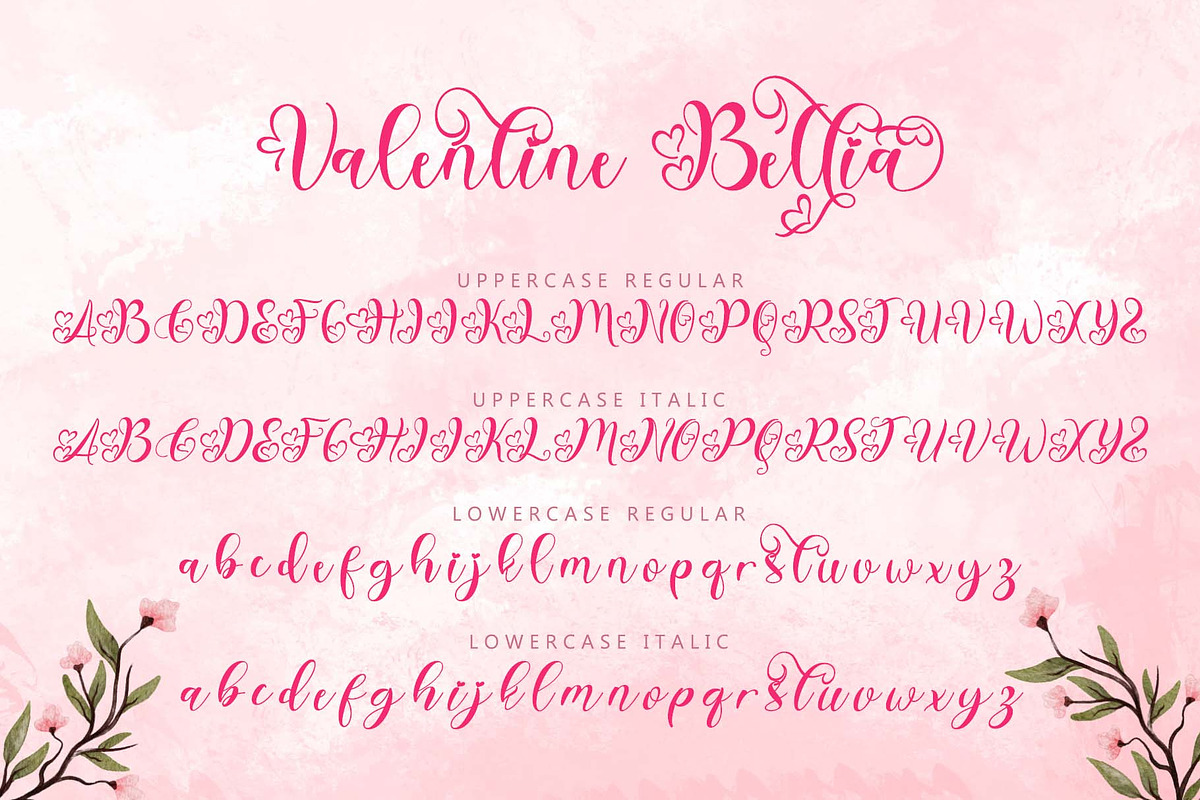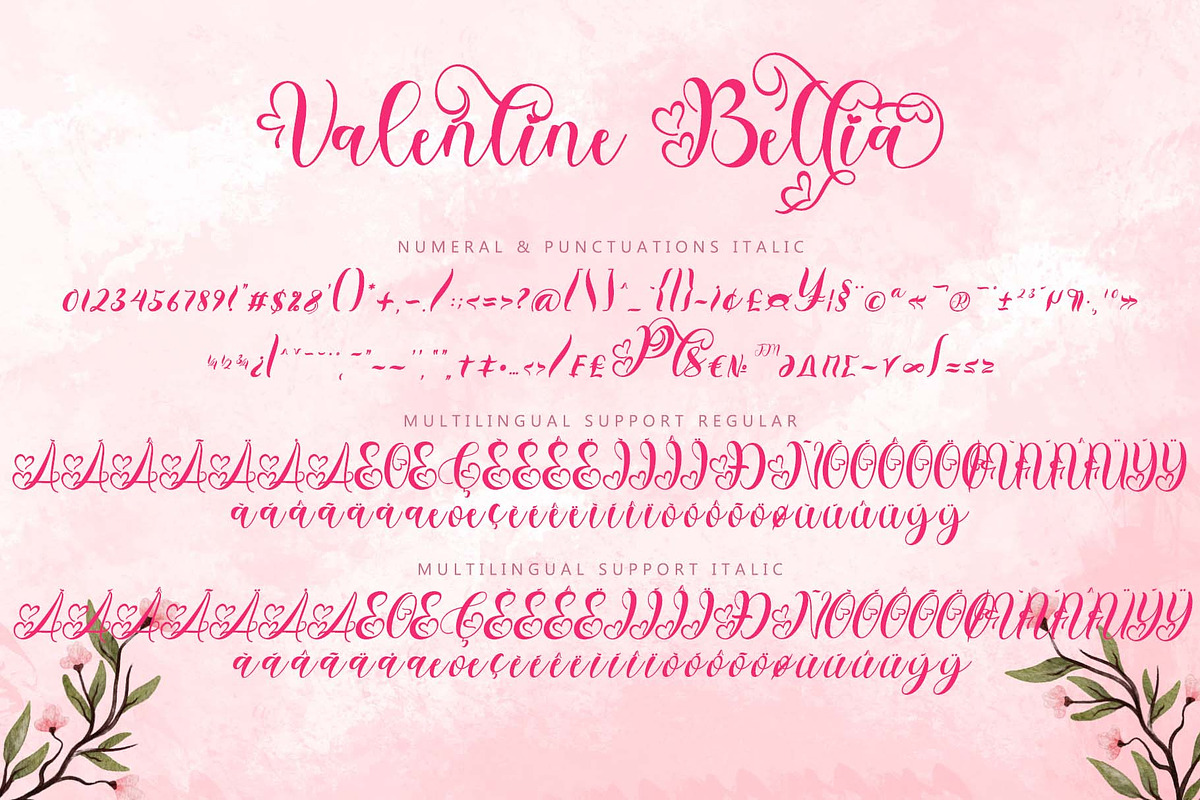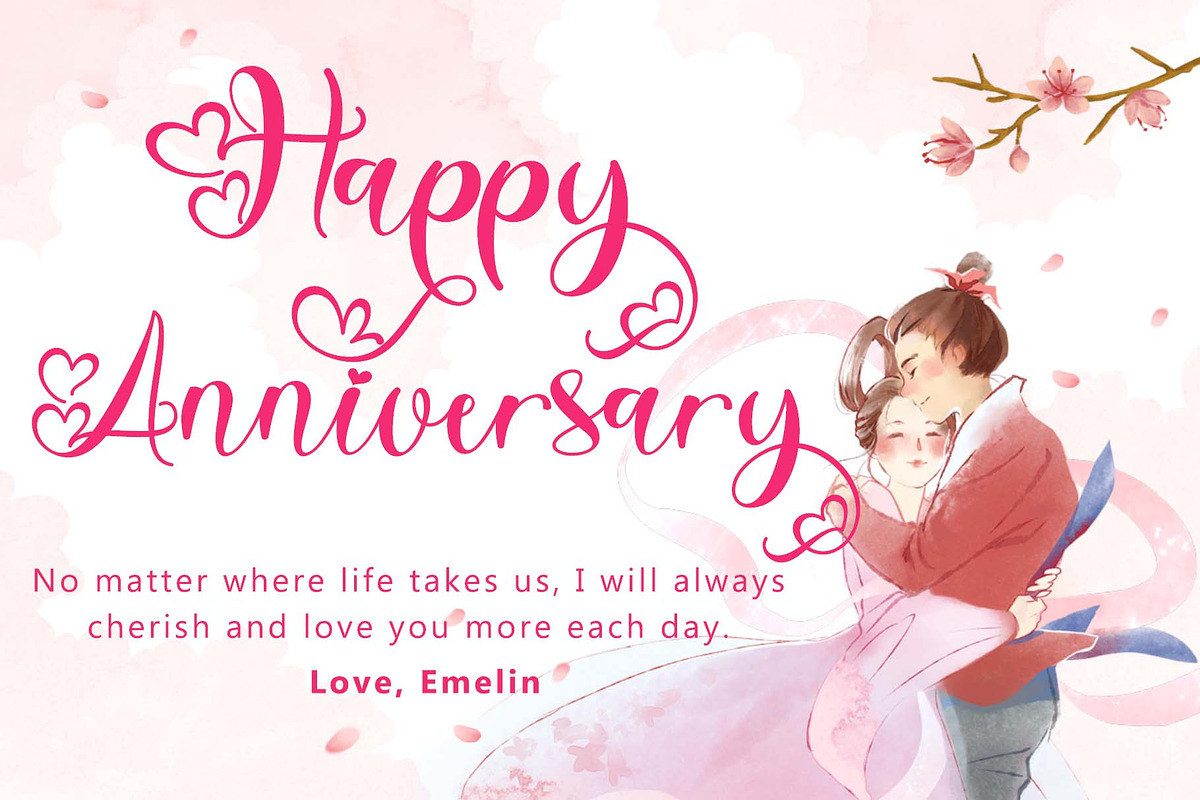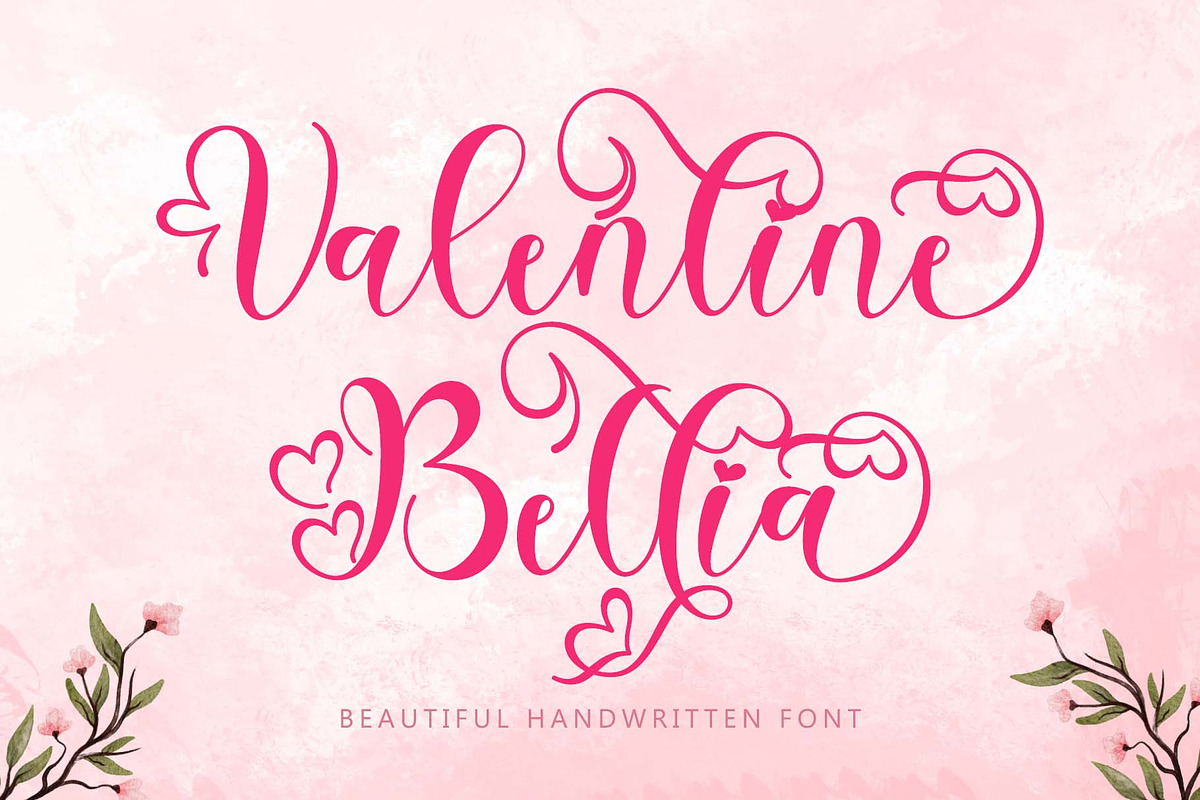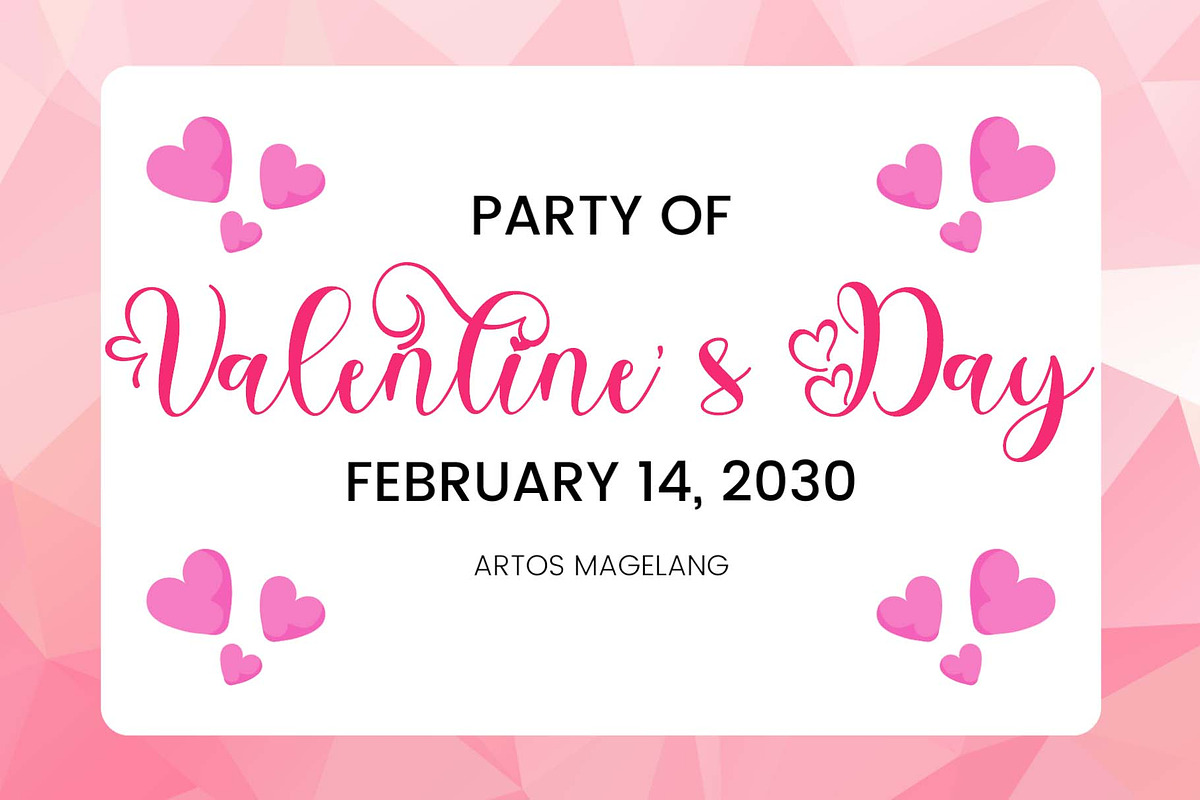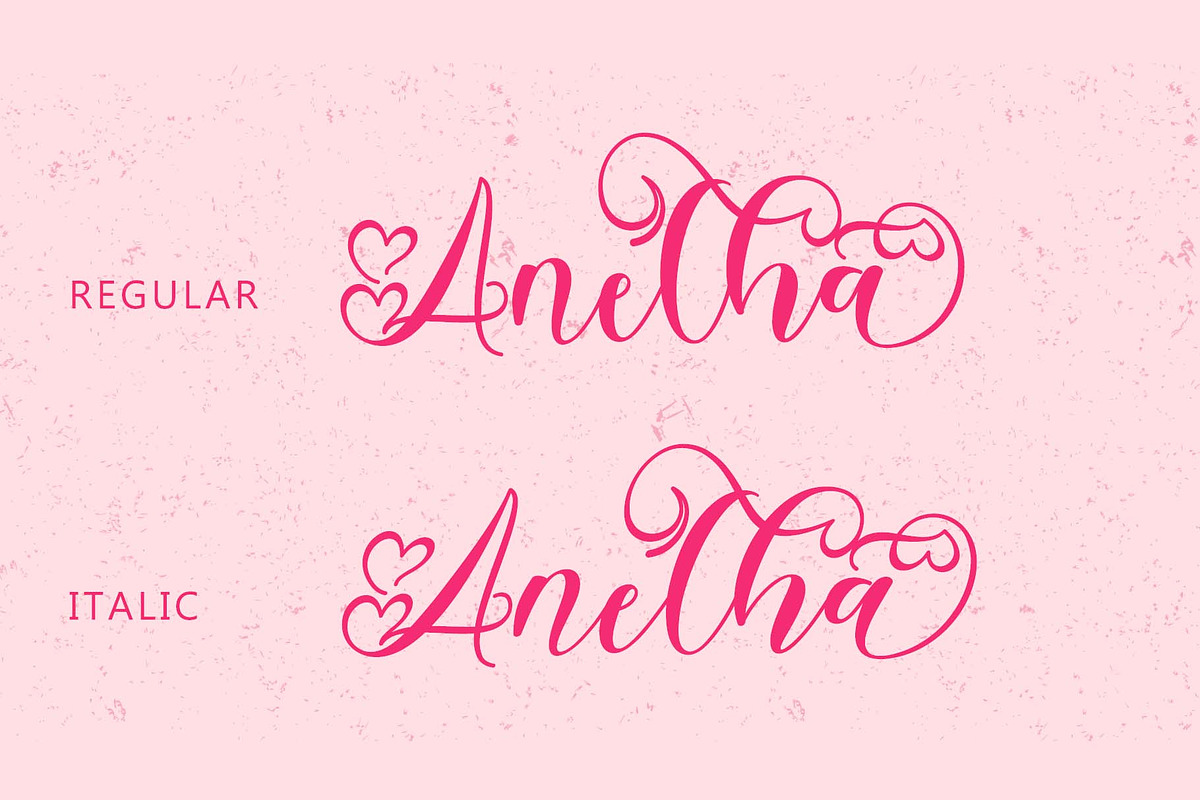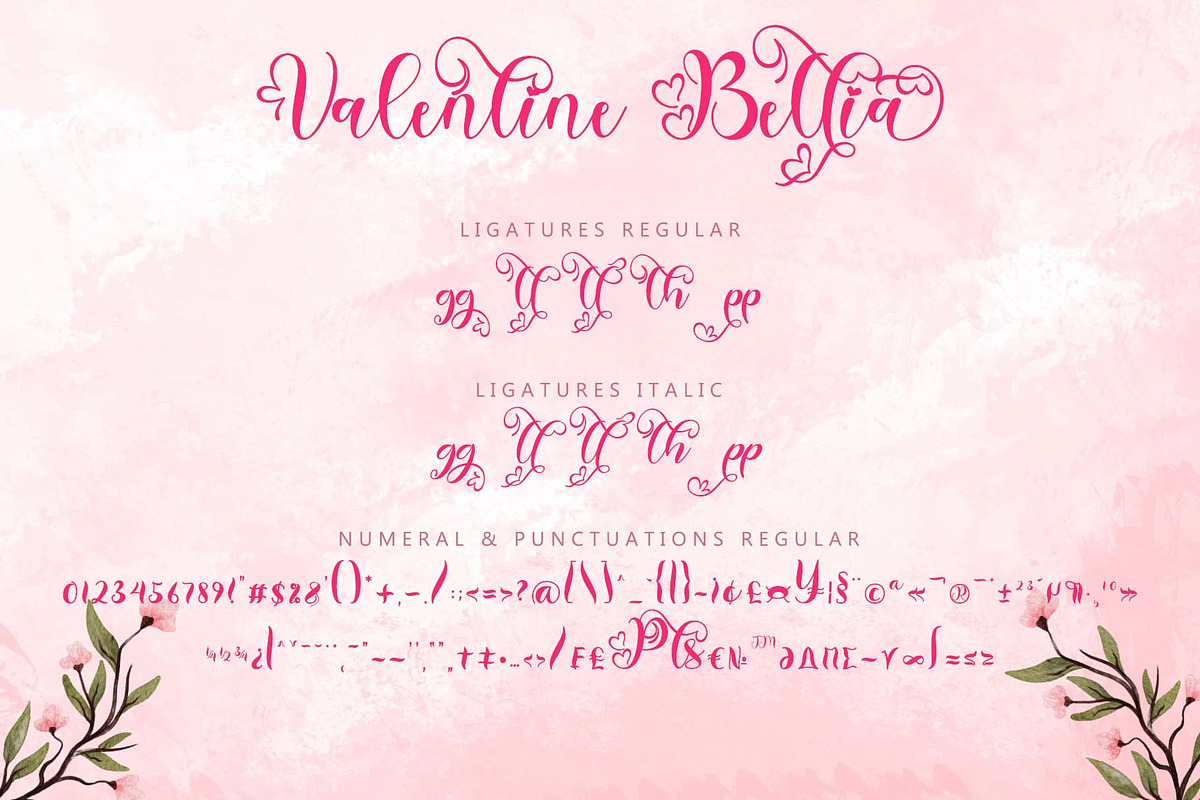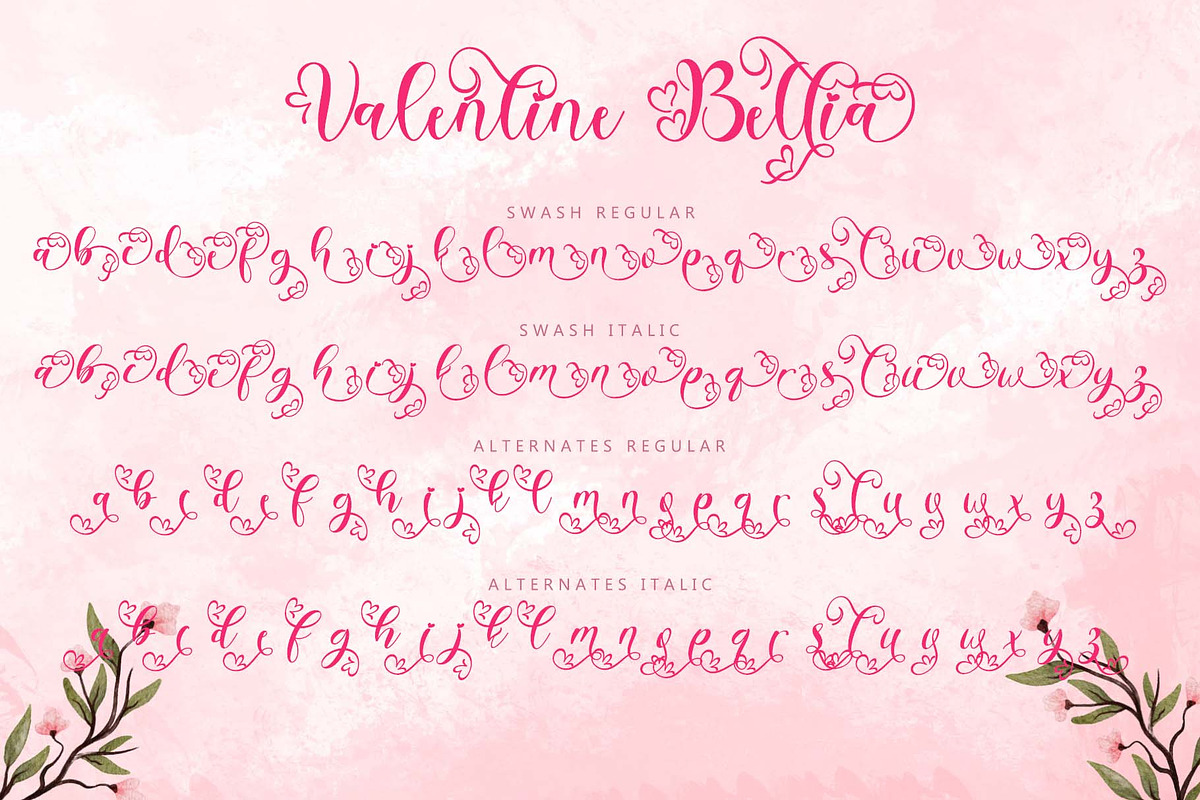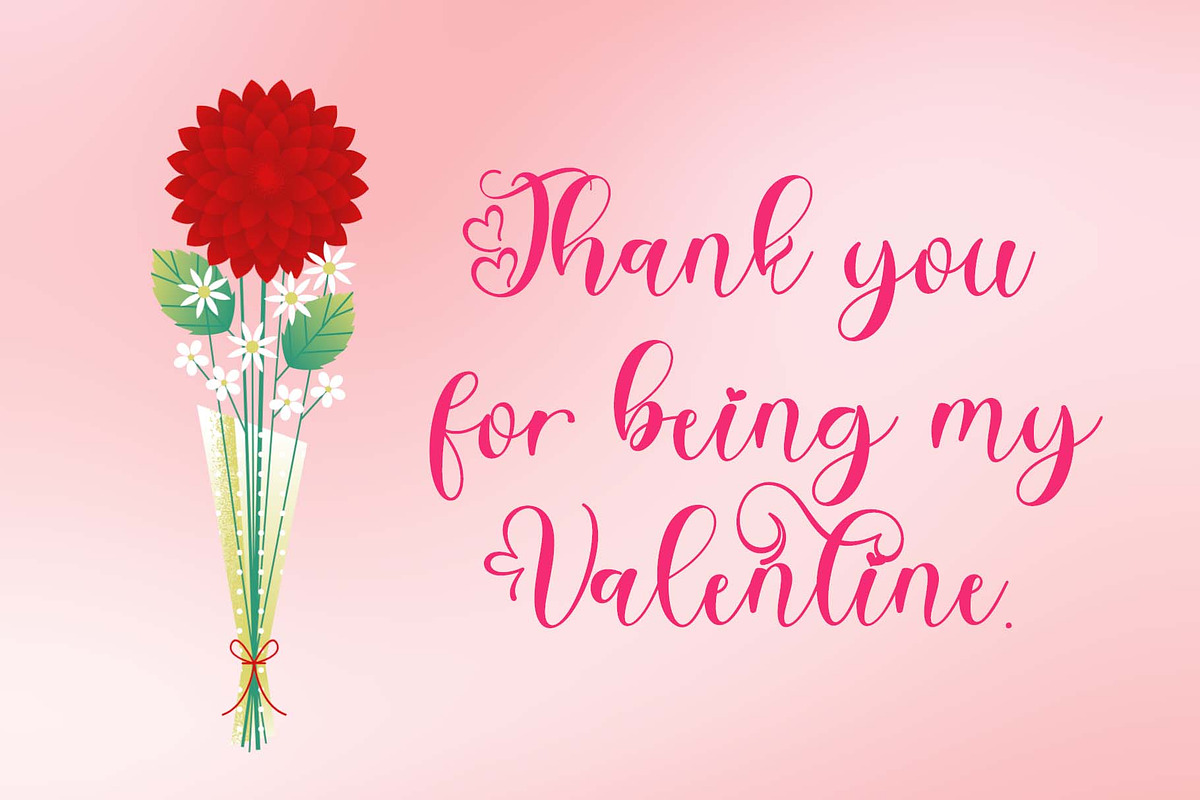
Valentine Bellia
"Valentine Bellia" is a beautiful and elegant handwritten font. This font has regular and italic versions with uppercase, lowercase, ligatures, numerals, punctuations, multilingual support, alternates and swashes. This font is perfect for weddings, invitations, valentines, christmas, spring, winter and more.